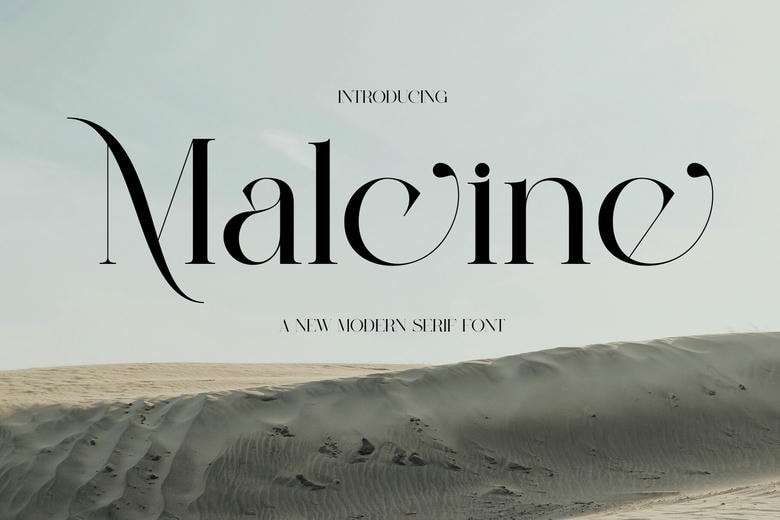
Malcine Font
Malcine is a beautiful ligature serif modern font that inspires fresh blossoms in bloom and timeless elegance. With its bold yet refined ligatures, Malcine is a sophisticated and feminine typeface. Malcine combines the beauty of the traditional serifs as florals, fashion, or high-end branding with a current appeal. All letters are deliberate, gracious and gentle in touch and presence, and any project worked on by it is elevated as such.
Malcine Serif Font